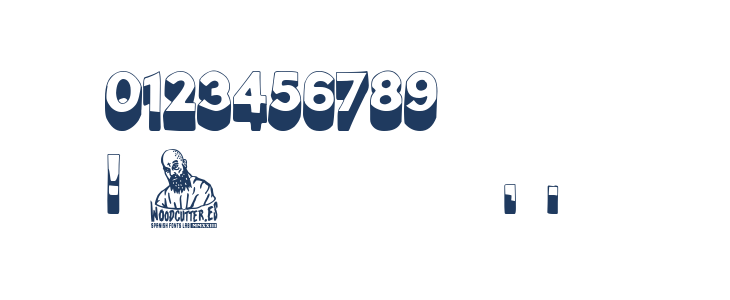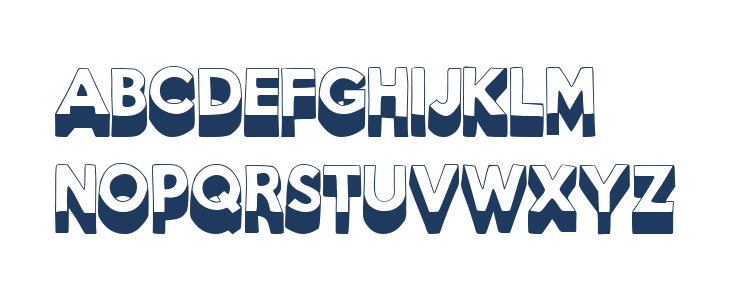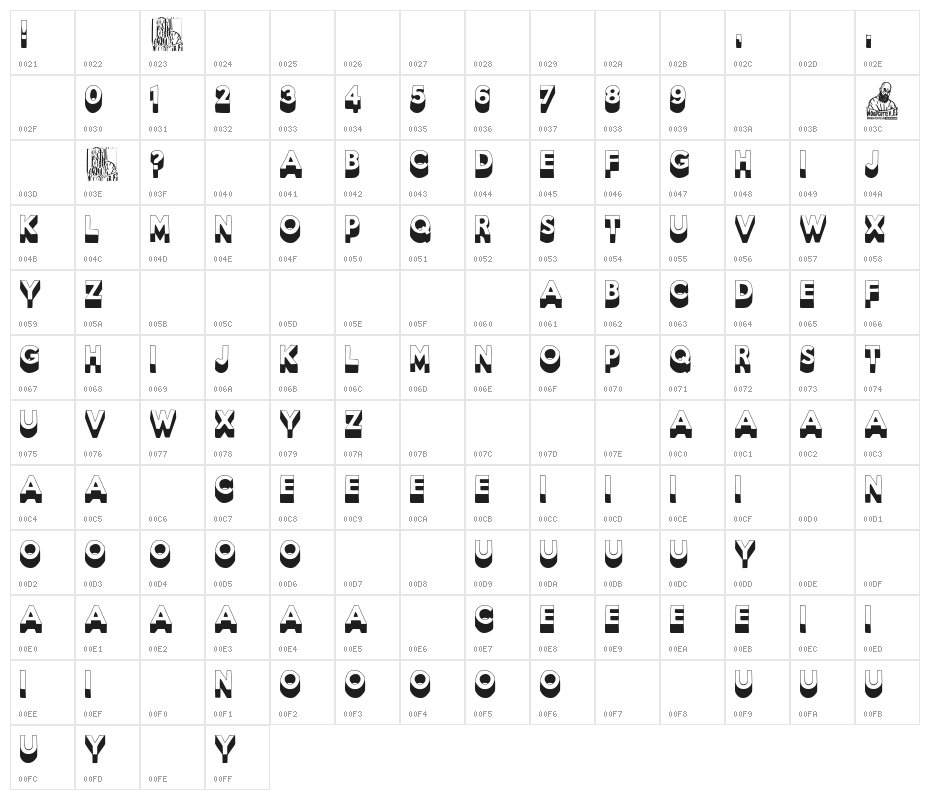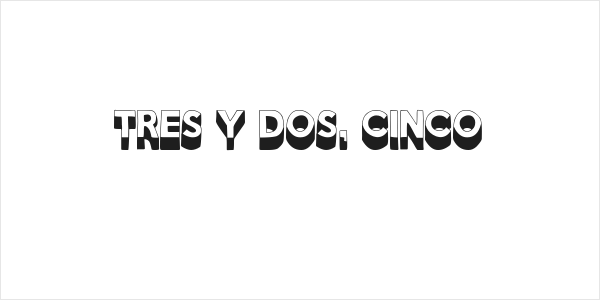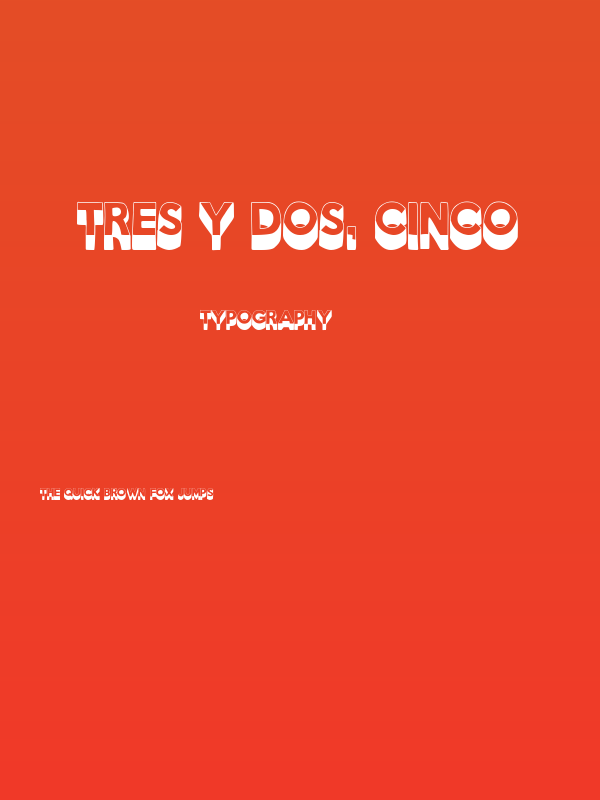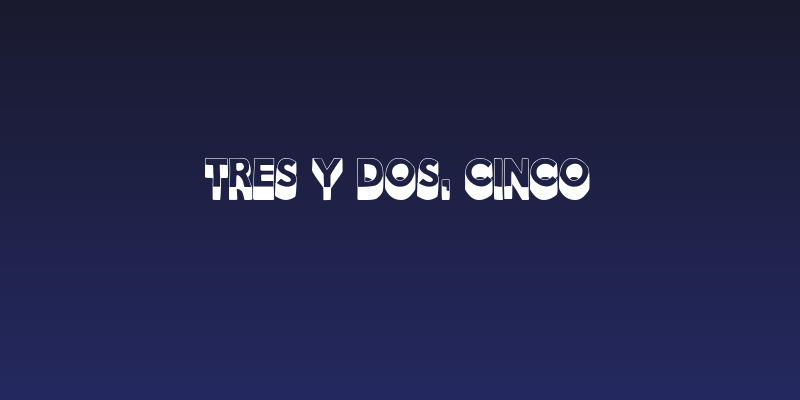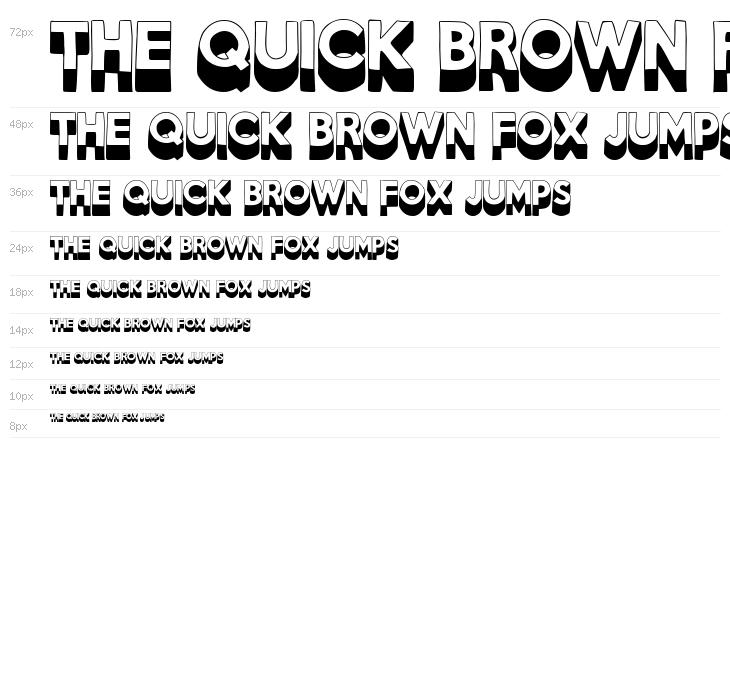
Tres y Dos, Cinco Font
Tres y Dos, Cinco Description
A bold, three-dimensional sans-serif display font with thick outlines and strong shadow effects, giving a playful and impactful appearance. All characters are uppercase, with rounded shapes and consistent geometric construction.
| Overall Style | Playful, Decorative, Modern |
| Use Case | Headlines, Logos, Posters, Signage |
| Proposed Projects | Posters, comic book titles, childrenΓ’β¬β’s books, event flyers, signage, branding for entertainment or youth-oriented products. |